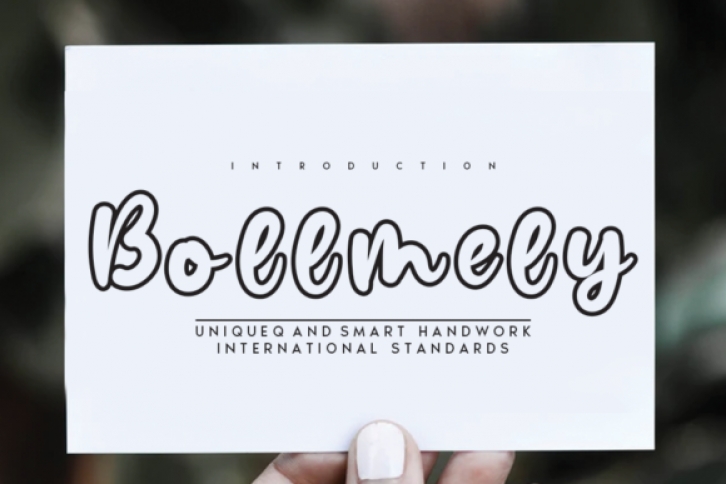
Bollmely is inspired by classic typography and brings its own unique style to any design project. Whether it’s for web, print, moving images or anything else – Bollmely will look spectacular.